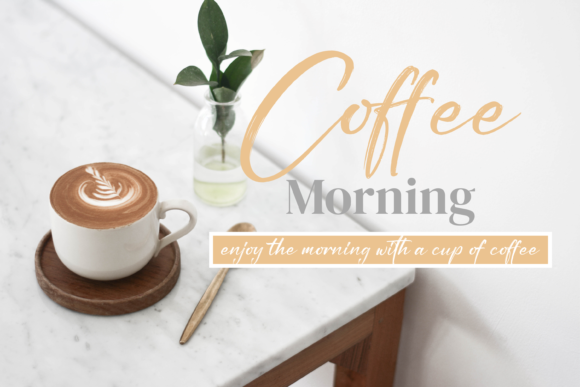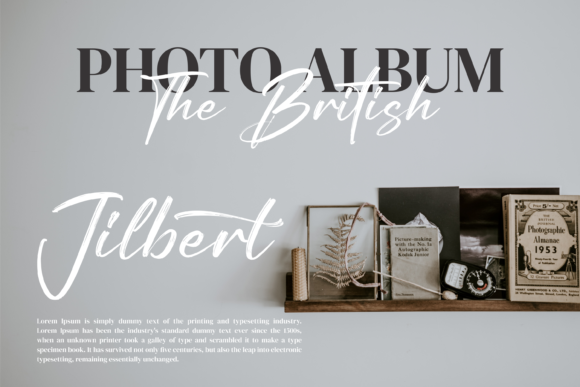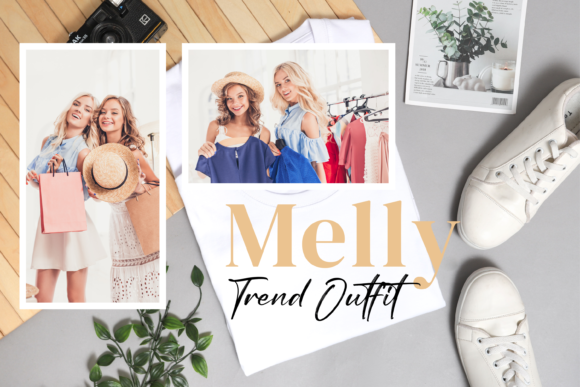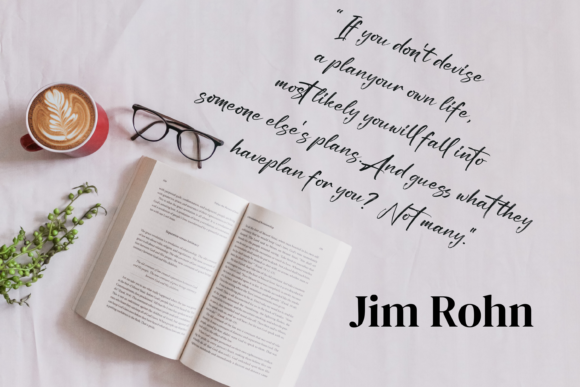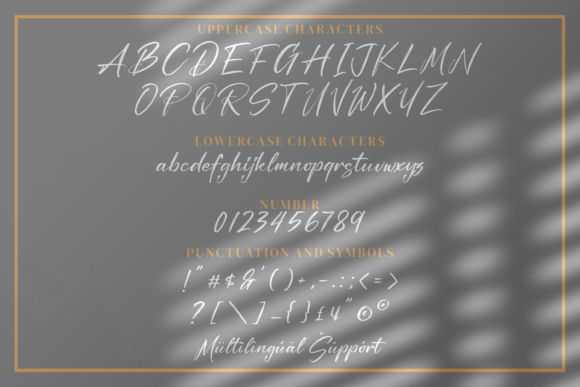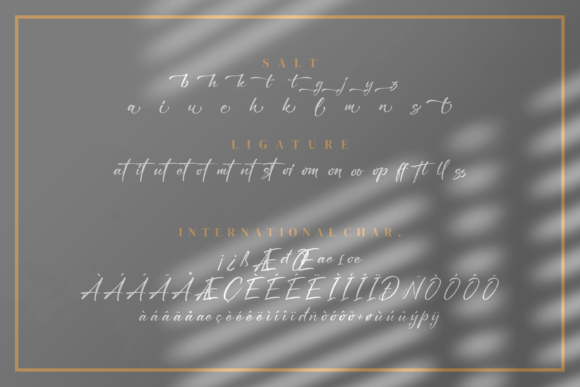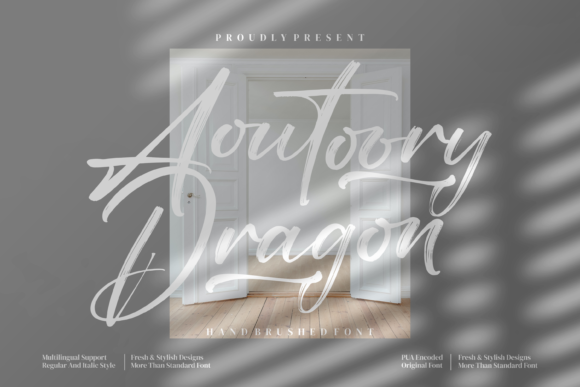
Aoutoory Dragon Font: Unleash Your Creativity with this Lovely Handwritten Font
Are you a designer, crafter, or simply someone who loves to create visually stunning content? Look no further! Aoutoory Dragon Font is here to take your designs to the next level. This beautiful, brushed handwritten font is perfect for creating eye-catching logos, branding, and quotes that will leave a lasting impression.
What makes Aoutoory Dragon Font special?
Aoutoory Dragon Font is not just another font – it’s a work of art. Every letter has a unique and beautiful touch, which will make your design come alive! The font’s lovely and brushed handwritten style gives it a personal and organic feel, making it perfect for designs that require a human touch.
Whether you’re a professional designer or a crafter, Aoutoory Dragon Font is the perfect choice for your next project. The font’s versatility and elegance make it suitable for a wide range of designs, from logos and branding to quotes and social media graphics.
Key Features of Aoutoory Dragon Font
- Lovely and Brushed Handwritten Style: Aoutoory Dragon Font boasts a beautiful, brushed handwritten style that adds a personal touch to your designs.
- Unique and Beautiful Touch: Every letter has a unique and beautiful touch, making your designs truly stand out.
- Elegant and Versatile: The font’s elegance and versatility make it perfect for a wide range of designs, from logos and branding to quotes and social media graphics.
- Eye-Catching Logos and Branding: Aoutoory Dragon Font is perfect for creating eye-catching logos and branding that will leave a lasting impression.
Tips and Tricks for Working with Aoutoory Dragon Font
- Experiment with Colors: Try out different colors and color combinations to add depth and interest to your designs.
- Add Textures and Patterns: Add textures and patterns to give your designs a unique and organic feel.
- Play with Font Sizes: Experiment with different font sizes to create visual hierarchy and emphasis.
- Use it with Other Fonts: Combine Aoutoory Dragon Font with other fonts to create stunning and unique designs.
Aoutoory Dragon Font is a must-have for designers and crafters who want to create visually stunning content. Its lovely and brushed handwritten style, unique and beautiful touch, and elegance and versatility make it perfect for a wide range of designs. So why wait? Download Aoutoory Dragon Font today and unleash your creativity!